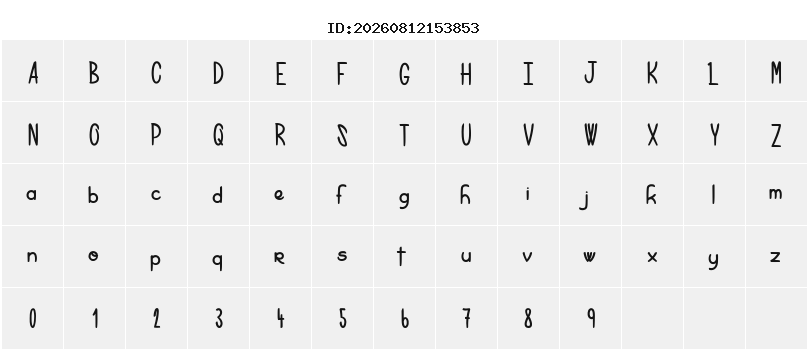
• Font Name: Right Balance
• Designer: dcoxy Medina Gregory
About Right Balance.ttf
Right Balance.ttf is a modern, elegant sans-serif font designed for ultimate readability and visual harmony. Perfect for branding, headlines, web design, and print materials.